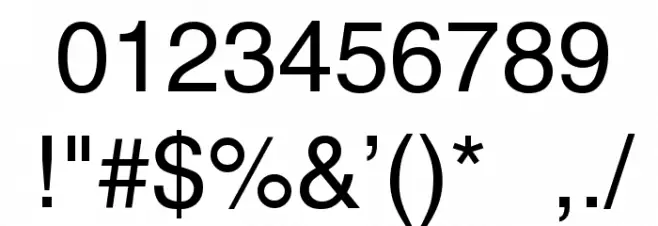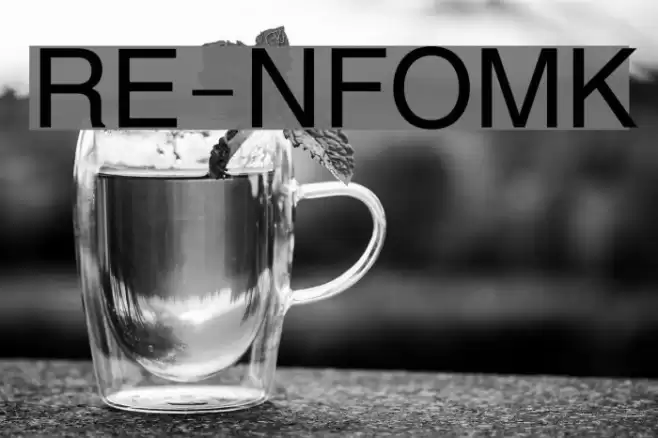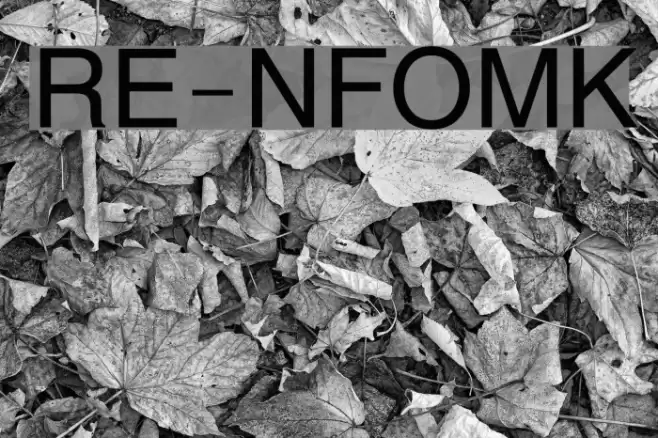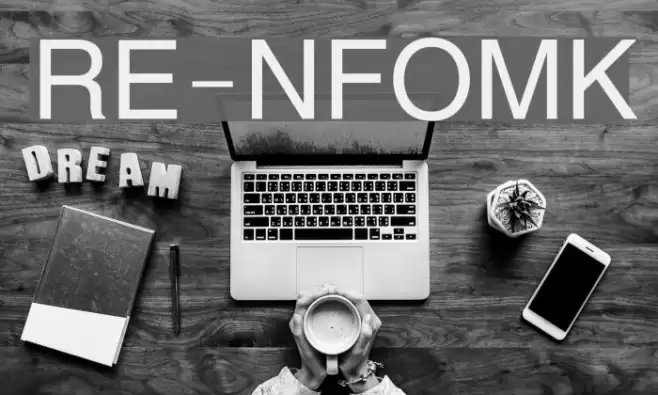
RE_iNFOM-Kaveri Font
This font features a clean and modern sans-serif design, characterized by its simplicity and readability. The letters are evenly spaced with a consistent stroke width, giving it a balanced and harmonious appearance. The uppercase and lowercase characters are well-proportioned, making it suitable for various design applications. The numerals are clear and distinct, ensuring easy readability. Special characters are included, maintaining the font's cohesive style. Its straightforward and uncluttered look makes it versatile for both digital and print media.
| Use Case | Headlines, Body text, Logos |
| Proposed Projects | Ideal for corporate branding, web design, user interfaces, and editorial layouts. |